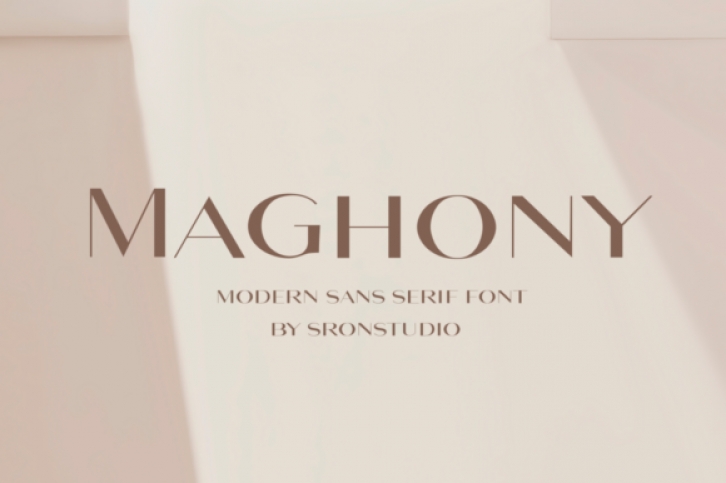
Maghony is a modern and elegant sans serif font. No matter the topic, this font will be an incredibly asset to your fonts’ library, as it has the potential to elevate any creation.